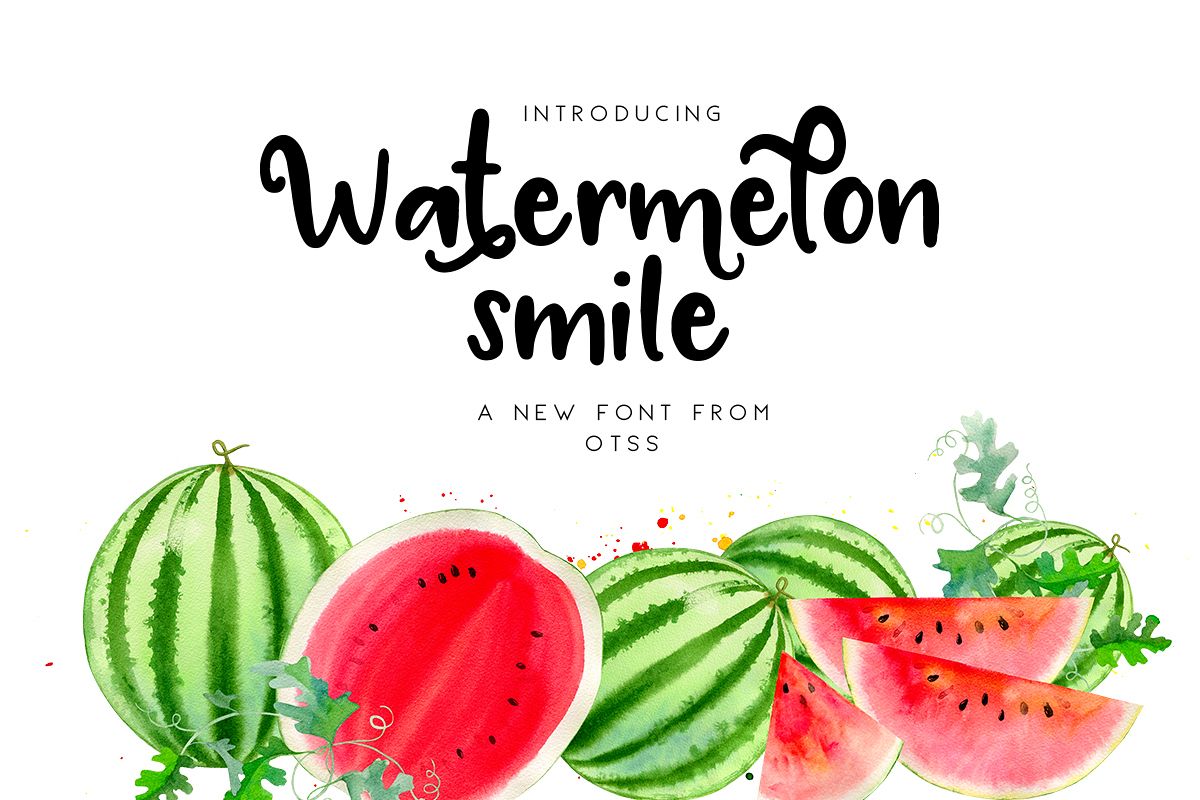
Watermelon Smile
Watermelon Smile is a hand lettered type great for branding, crafting, and so much more! Packed with personality, you will receive both the standard Watermelon Smile font as well as the BONUS font with swirls on certain letters for a little more attitude!? Commercial Use OK! Please do NOT resell, redistribute, or create SVG alphabets of this font. ? Includes OTF and TTF in zipped download file ?
Watermelon Smile